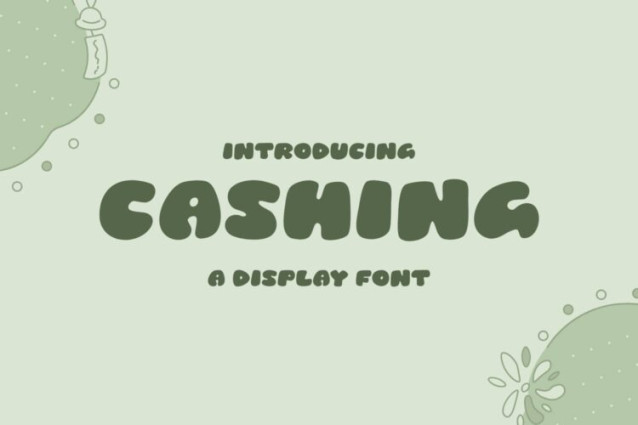
Cashing Font
Cashing Font is a simple and modern display font suitable for quotes, logos, headings, titles, and many more. Use it on any of your creative projects, and your designs will become outstanding!